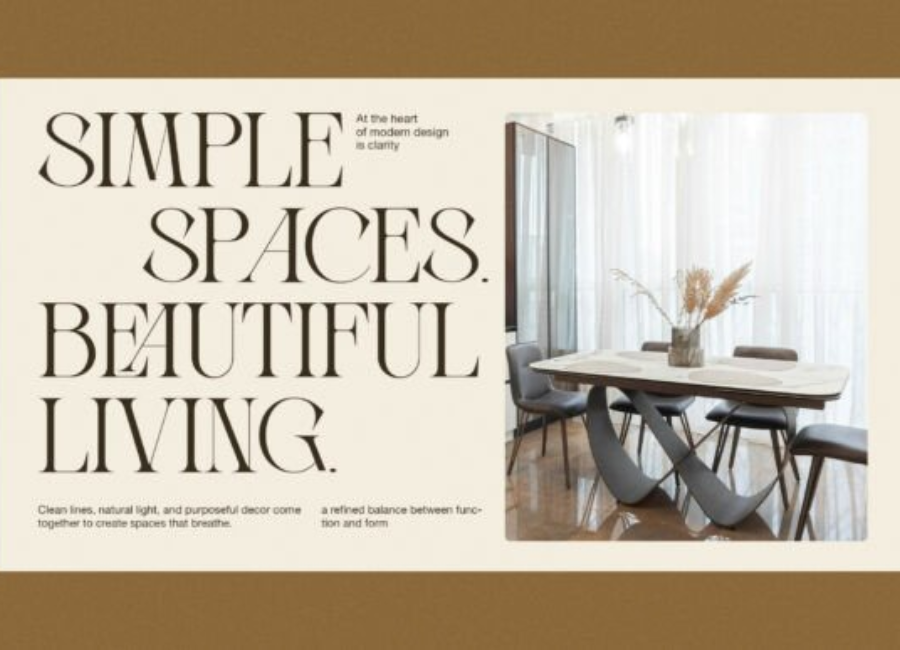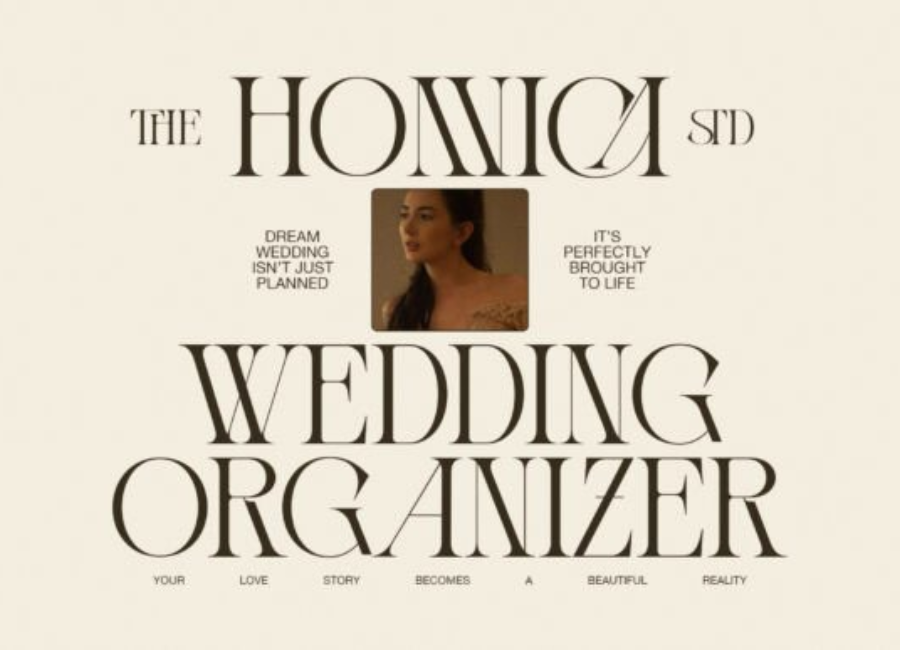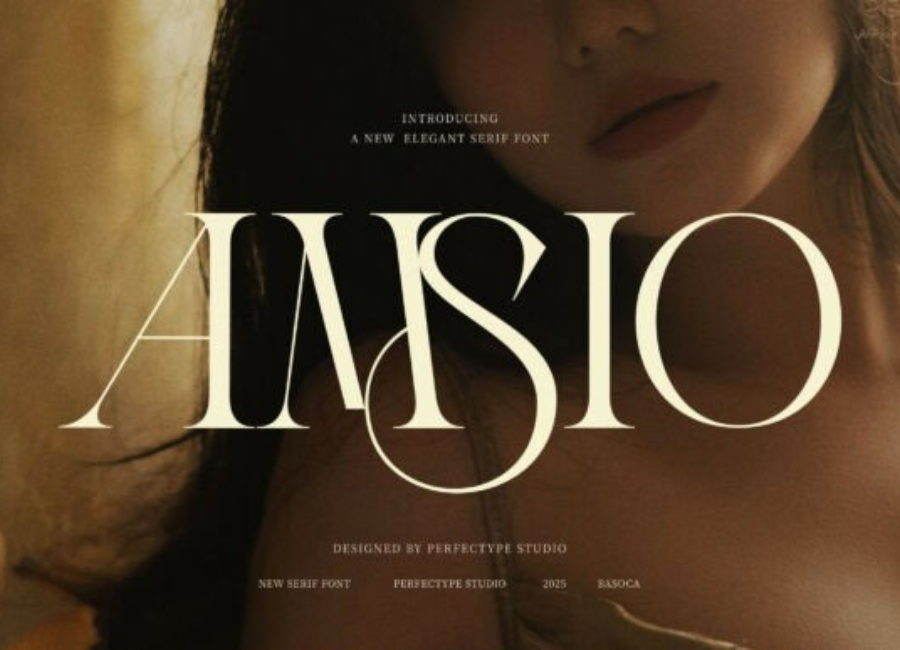
Amsio Elegant Serif Font: A Modern Classic for Timeless Typography
Typography is more than the arrangement of letters on a page—it is the personality of a message, the voice behind the words, and one of the most influential elements in visual communication. Among the many typefaces introduced in recent years, Amsio Elegant Serif Font stands out as a refined blend of modern sophistication and classical serif charm. Designed for creatives who want to elevate their brand identity, editorial layouts, and digital presentations, Amsio brings a luxurious, graceful, and contemporary aesthetic that fits beautifully across a wide range of design applications.
A Modern Serif Rooted in Tradition
Amsio Elegant Serif sits comfortably at the intersection of traditional typography and modern design principles. At first glance, its classic serif structure evokes the timelessness of old-style Roman typefaces—fonts rooted in history and admired for their balanced proportions and harmonious readability. However, Amsio modernizes this foundation with fine details, sharper contrasts, and subtle curves that give it a distinctive personality.
Its most defining characteristic is the combination of high-contrast strokes, elongated serifs, and smooth, rounded transitions. These features create an appearance that is both strong and delicate, making Amsio ideal for projects that require elegance without sacrificing legibility. Whether used in headlines, logotypes, or large-format publications, the font exudes a sense of refinement that captures attention without overwhelming the design.
Visual Style and Signature Features
What sets Amsio apart is its ability to convey luxury through simplicity. Every detail—from the meticulously drawn serifs to the proportional spacing—contributes to its sophisticated visual voice. Key features include:
1. High-Contrast Letterforms
Amsio’s thin-to-thick stroke variations add dynamic energy to each character. This contrast enhances the font’s high-end aesthetic and makes each letter feel sculpted rather than simply drawn.
2. Graceful, Elongated Serifs
The extended, tapered serifs give the typeface a confident yet soft personality. They enhance readability while adding decorative elegance, making Amsio particularly effective in headlines and branding assets.
3. Smooth Curves and Balanced Geometry
The font includes subtle curvature in letters like C, S, and G, creating a flowing rhythm across text lines. This attention to form supports visual cohesion and improves scanning, even at medium sizes.
4. Luxurious Uppercase Aesthetic
Many designers choose Amsio specifically for its uppercase letters, which display architectural precision and a commanding presence ideal for monograms, logos, and typography-based artwork.
5. Strong Versatility Across Digital and Print Media
Amsio retains clarity not only in high-resolution print but also in digital formats, ensuring it remains crisp and elegant regardless of the medium.
Perfect for Branding and Identity Design
In the world of branding, first impressions carry significant weight. A company’s logo, tagline, and typography must immediately convey its values and character. This is where Amsio excels. The font’s polished appearance communicates stability, style, and professionalism—qualities essential for luxury brands, boutique businesses, and creative enterprises.
Amsio is particularly well-suited for:
-
Fashion and beauty labels seeking a couture-inspired aesthetic
-
Wedding and event branding needing a soft, romantic tone
-
Interior design studios projecting modern elegance
-
Boutique hotels and restaurants aiming for a high-end appeal
-
Magazine mastheads that require strong typographic personality
The font’s mix of classical and contemporary traits allows it to fit diverse brand narratives, from minimalist and modern to ornate and traditional.
Ideal for Editorial and Creative Layouts
Editorial design thrives on typography that supports hierarchy, readability, and visual drama. With its refined structure, Amsio is perfect for magazine covers, chapter titles, pull quotes, and poster designs. Its tall x-height and crisp serifs allow text to command space while guiding the reader’s eye naturally across the layout.
Designers often pair Amsio’s bold headlines with cleaner sans-serif body fonts, creating contrast that enhances readability. The result is a visually balanced composition that feels both modern and timeless.
Logo Design and Monogram Use
One of Amsio’s strongest applications is in logo and monogram design. The uppercase letters, in particular, offer geometric stability and luxurious flair. Letters like A, M, R, and S include dramatic strokes and stylish terminals that look stunning when isolated and enlarged.
Monogram-based brands—such as jewelers, florists, wedding planners, and design boutiques—benefit greatly from Amsio’s graceful silhouette. Its refined symmetry can make even a single letter appear like a handcrafted emblem.
Amsio proves that elegance does not have to be complicated—sometimes, all it takes is a thoughtfully designed serif to transform a project into a work of art.